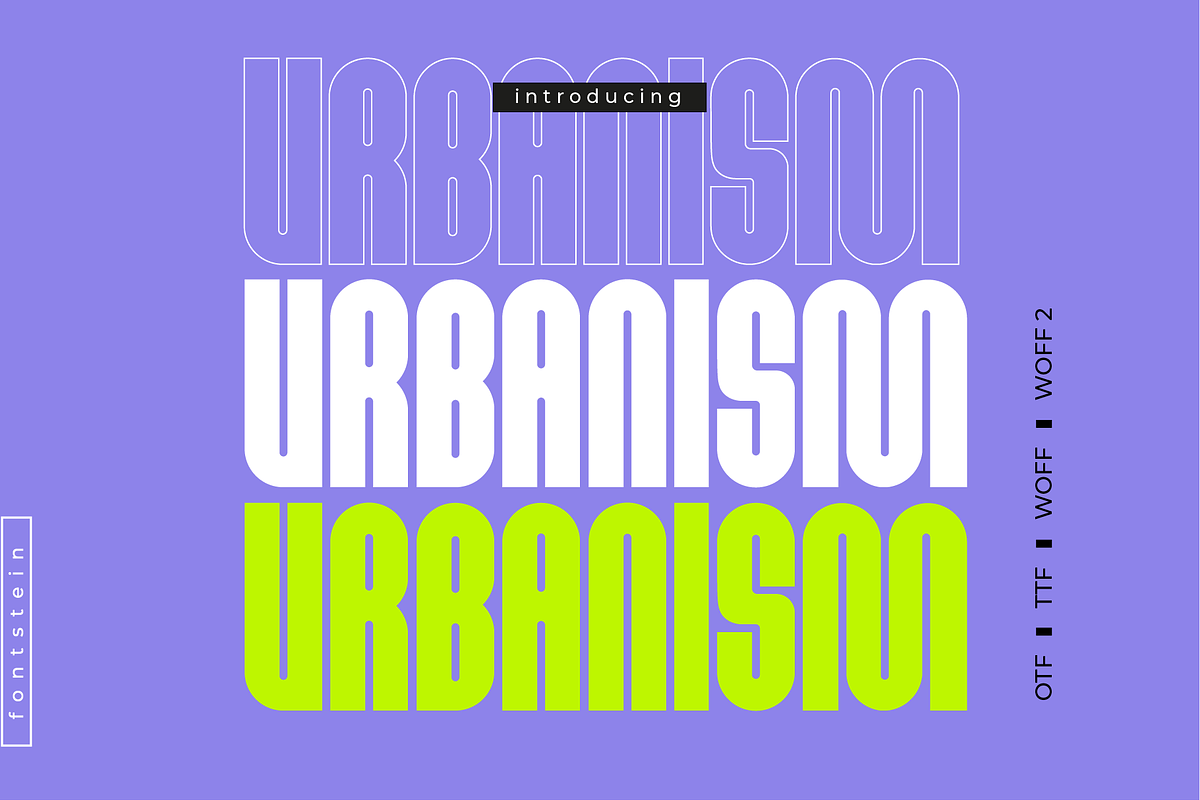
URBANISM | Display Font + Outline Free Download
URBANISM | Display Font + Outline Free Download is a bold and modern typeface duo featuring a solid display style and a matching outline version. Inspired by city life, streetwear, and bold graphic design, this font is perfect for logos, posters, apparel, editorial headlines, and urban-themed branding.
With its clean lines, sharp edges, and contemporary vibe, URBANISM | Display Font + Outline Free Download brings a strong visual presence to both print and digital projects. Use the filled and outline versions together for layered effects or contrast in layouts that demand attention.